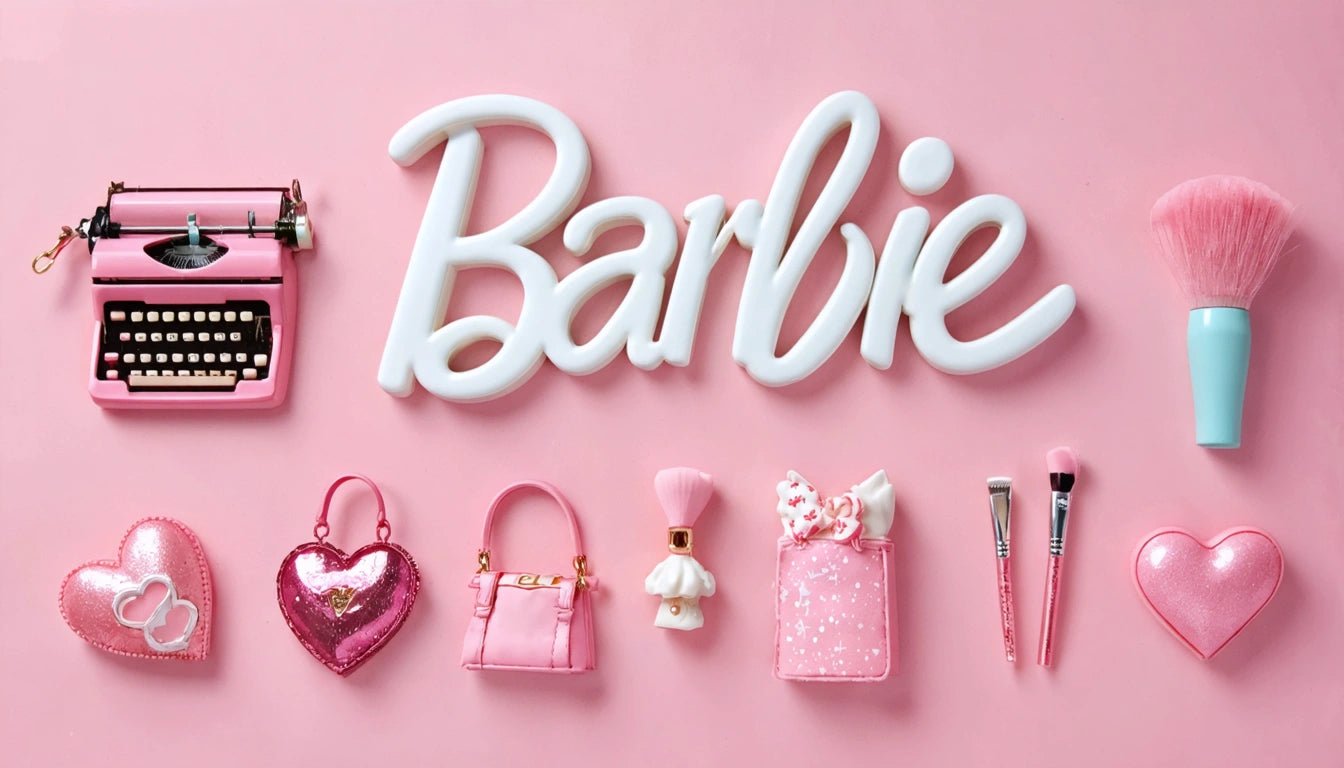
The Evolution and Typography of the Barbie Logo: History and Font Explained
Since her debut in 1959, Barbie has become one of the world's most recognizable brands, with her logo evolving alongside changing design trends and cultural shifts. The Barbie logo evolution reflects not just aesthetic preferences of different eras but also the brand's growth from a simple toy to a global cultural icon. Understanding what font the Barbie logo uses provides insights into how typography helps build lasting brand identity.
Barbie Logo History: From 1959 to Present Day
The Barbie logo has undergone several transformations while maintaining its core identity. Each iteration marks a specific period in the brand's development:
1959-1975: The Original Script
When first introduced, the Barbie logo featured a simple, handwritten script with a slight slant, resembling casual handwriting. This reflected the personal, approachable nature of the brand during its early years. The original packaging used a black script against a striped background, establishing Barbie as a fashion-forward but accessible toy.
1975-1991: The Bubble Period
In the mid-1970s, Barbie adopted a rounder, bubble-like font with fuller curves and a more playful appearance. This era's logo featured a thicker stroke and more uniform letter sizing, often presented in bright pink. This change aligned with the broader typographic trends of the 1970s, when rounded, friendly fonts gained popularity across consumer products.
1991-1999: The Italic Evolution
The early 1990s saw Barbie adopt an italic, slightly condensed version of the logo. The letters became more streamlined with a forward-leaning emphasis, suggesting movement and progression. This period coincided with Barbie's expanding professional roles in the toy line, from doctor to astronaut.
1999-2004: Millennial Makeover
As the new millennium approached, Barbie updated to a more modern, clean script. The letters became more uniform in height with smoother connections, often presented in a metallic pink finish that reflected the Y2K aesthetic of shiny, futuristic design elements.
2004-2009: Return to Classics
In the mid-2000s, Barbie revisited some elements of its earlier logos with a refined script that balanced nostalgia with contemporary design principles. The letters maintained their connection while adopting a more sophisticated flow.
2009-Present: The Modern Era
The current Barbie logo features a clean, professional script with balanced proportions and a slight upward angle. The contemporary design maintains the brand's playful essence while appearing more sophisticated and versatile across digital and physical applications.
What Font is the Barbie Logo? Typography Analysis
Many wonder what font the Barbie logo uses. The Barbie logo isn't based on a standard commercial font but is a custom-designed script created specifically for the brand. However, its characteristics can be analyzed:
- The current Barbie font features connected script letters with a slight rightward slant
- It maintains consistent stroke width with minimal contrast between thick and thin lines
- The distinctive capital 'B' has become an iconic element, with its generous loops and curves
- Letter spacing is tight but legible, creating a cohesive wordmark
- The baseline has a slight upward angle, creating a sense of optimism and forward movement
For brands seeking to create similarly distinctive typography, exploring top fonts for company logos can provide valuable insights into how custom typography builds brand recognition.
Design Elements and Color Evolution
Beyond typography, several design elements have defined the Barbie logo throughout its history:
Color Psychology
The Barbie pink (Pantone 219C) has become so associated with the brand that it's recognized as "Barbie Pink." This signature color has remained consistent despite logo redesigns, though its application has evolved:
- Early logos: Pink was used alongside black and white
- 1970s-1980s: Brighter, more saturated pink dominated
- 1990s: Metallic and gradient effects were introduced
- 2000s-Present: A more sophisticated pink with occasional metallic finishes
This strategic use of color psychology aligns with principles discussed in exploring logo design and meaning, where consistent color usage builds instant recognition.
As design trends continue to evolve, the principles demonstrated in the Barbie logo remain relevant for brands across industries. Whether creating a new identity or refreshing an established one, understanding modern font trends while maintaining brand consistency remains the key to creating enduring visual identities.